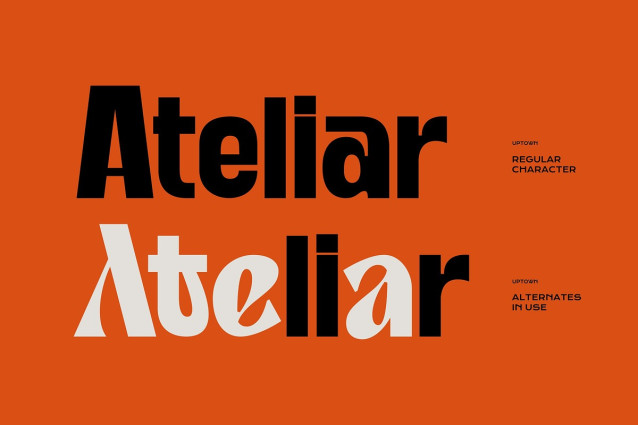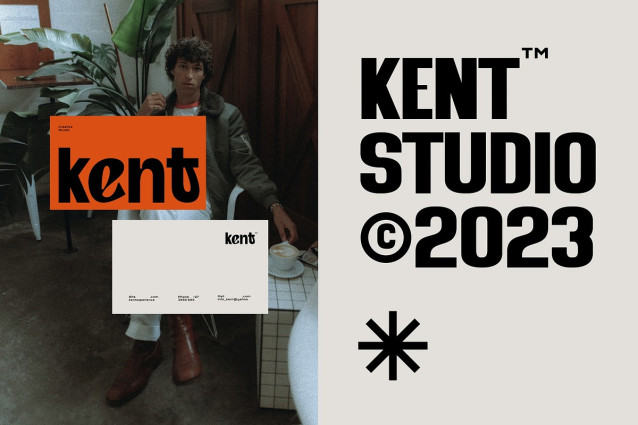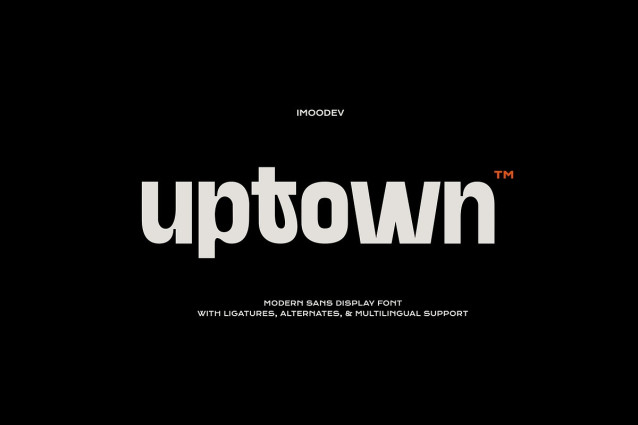
Uptown Font is a modern sans serif display font with a geometric and condensed structure. It features contemporary and clean letterforms, designed for impactful headlines and branding.
Uptown conveys a sense of modernity, confidence, and a touch of playful sophistication, making it ideal for creative studios, urban brands, and bold visual identities.
This font can be used in various branding scenarios, movie titles, packaging, such as large signage, editorial style layouts, business cards, and merchandise. It pairs perfectly with minimalist, modern, or streetwear inspired brands.